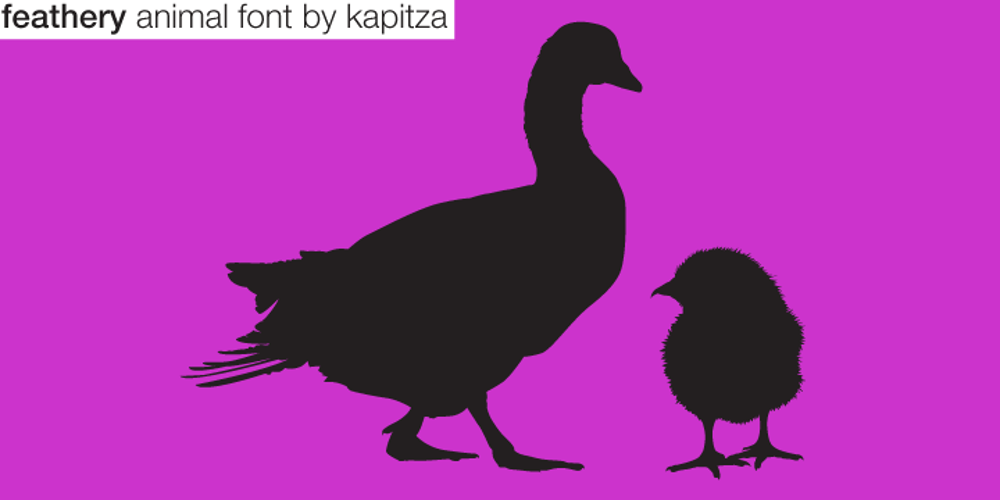
Feathery
Feathery font
Feathery Font Family was designed by published by kapitza. Feathery contains 1 styles and family package options. Feathery is a collection of 45 cute and fantastical bird illustrations. All illustrations are drawn by hand and of the highest quality.